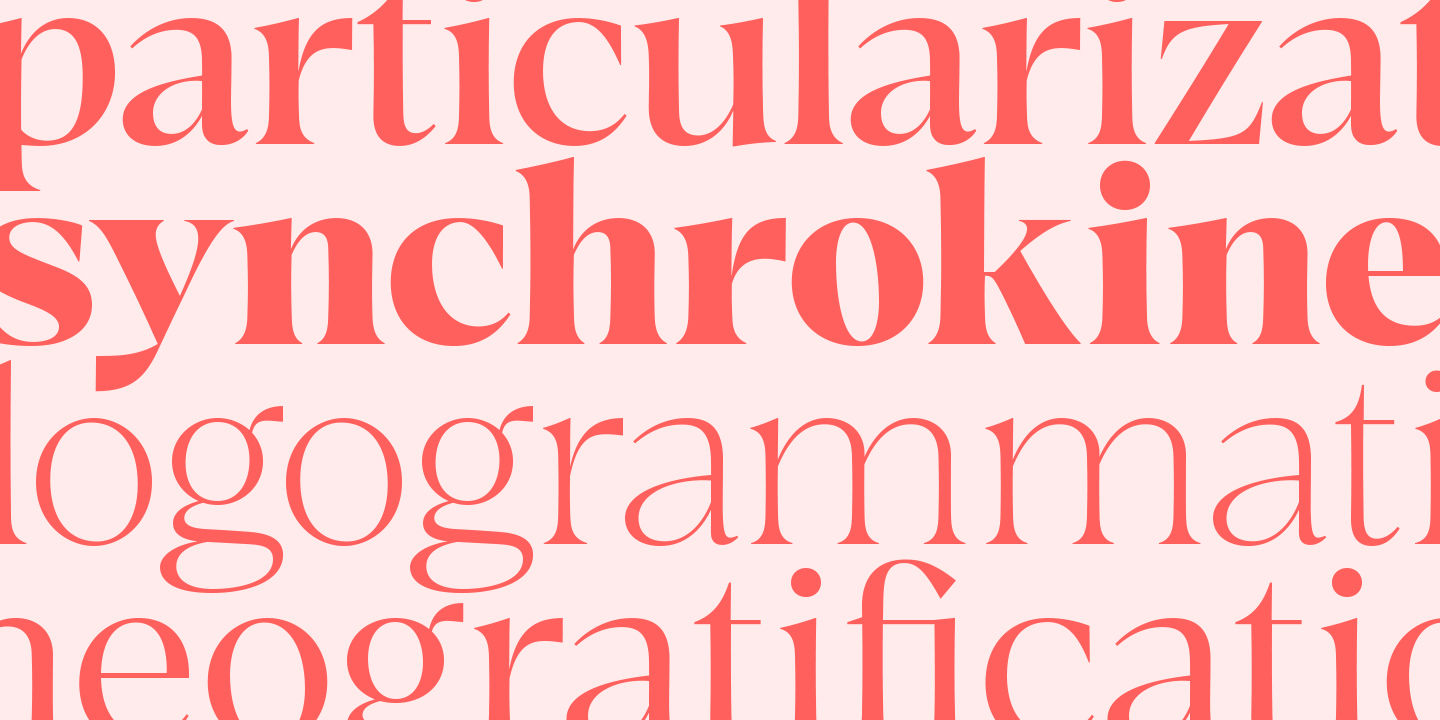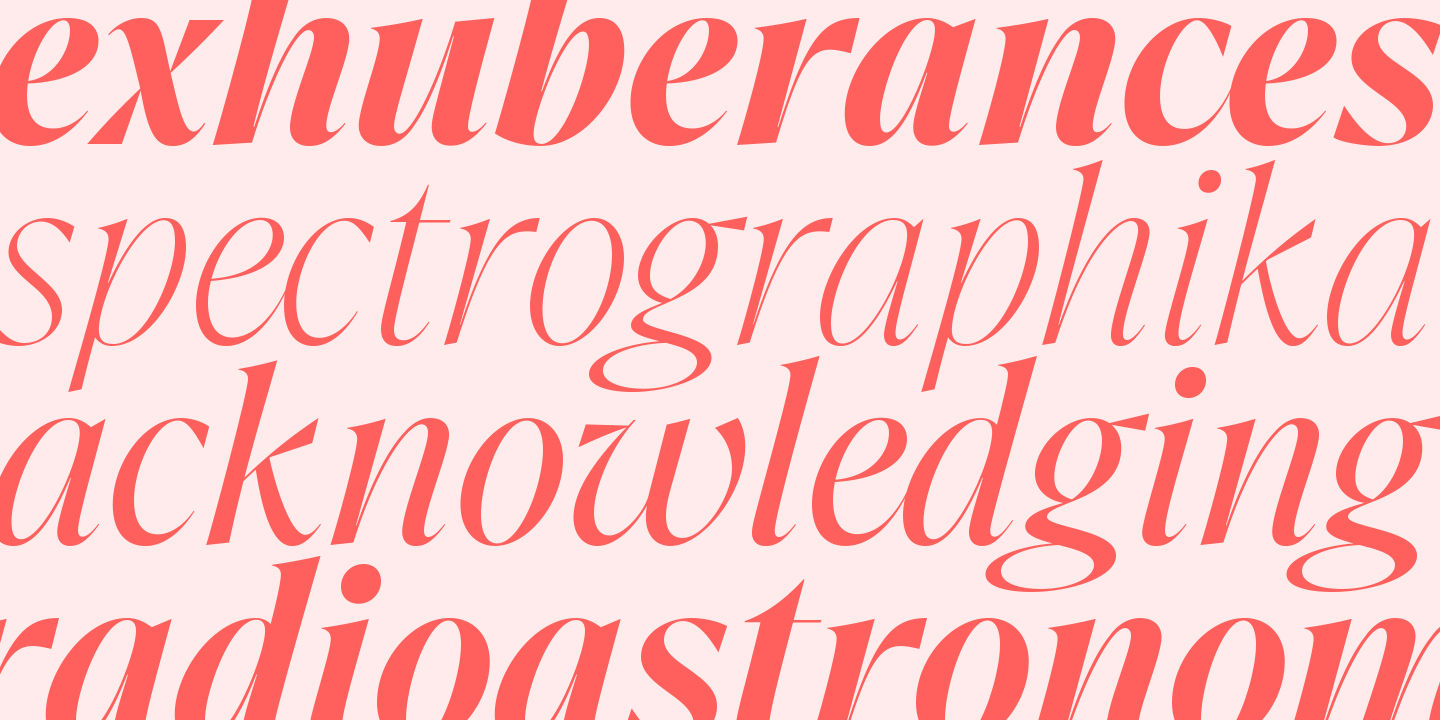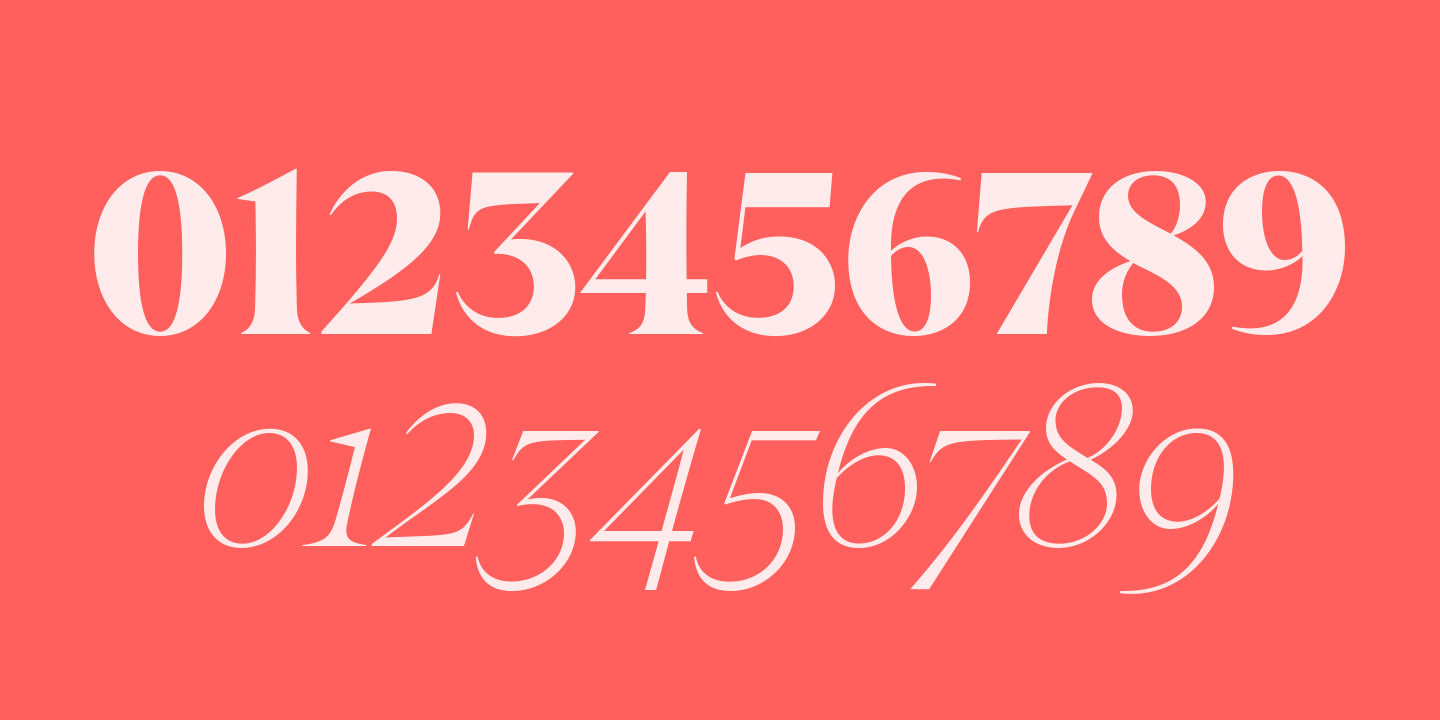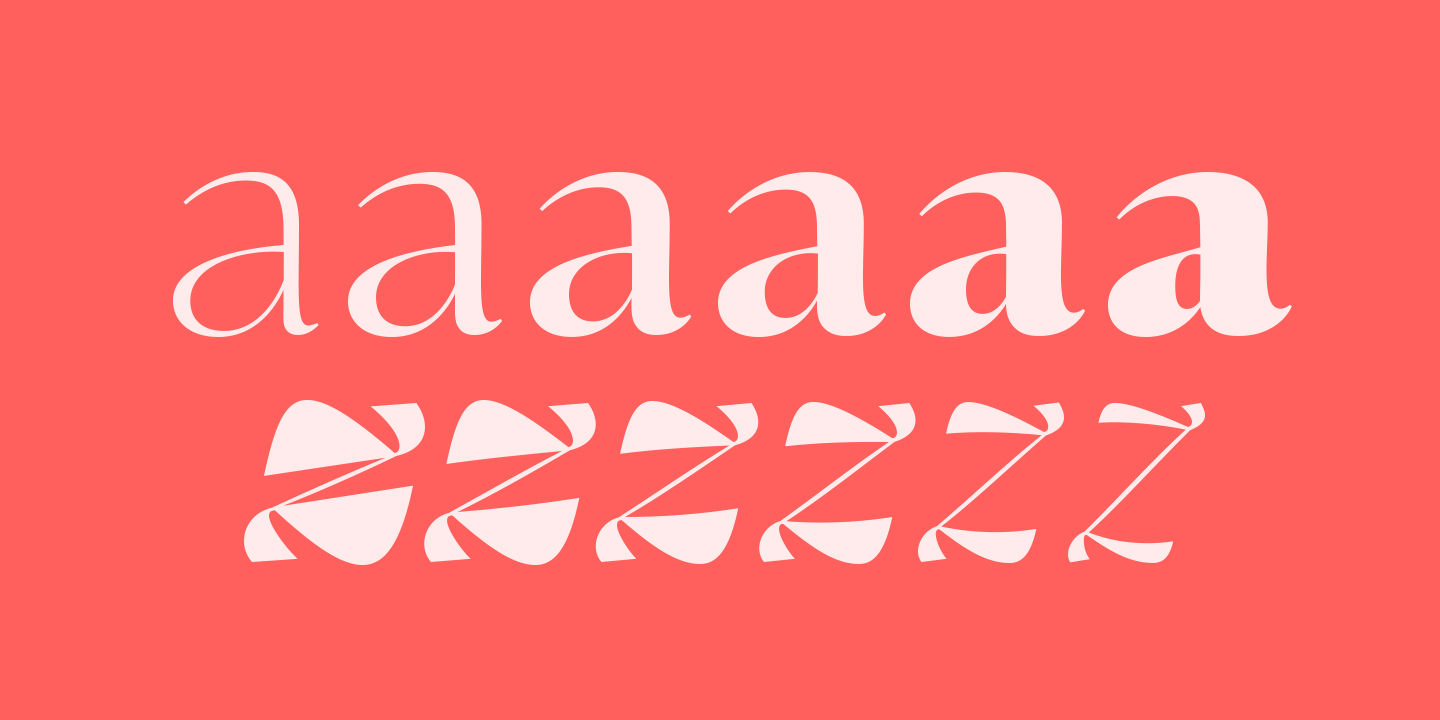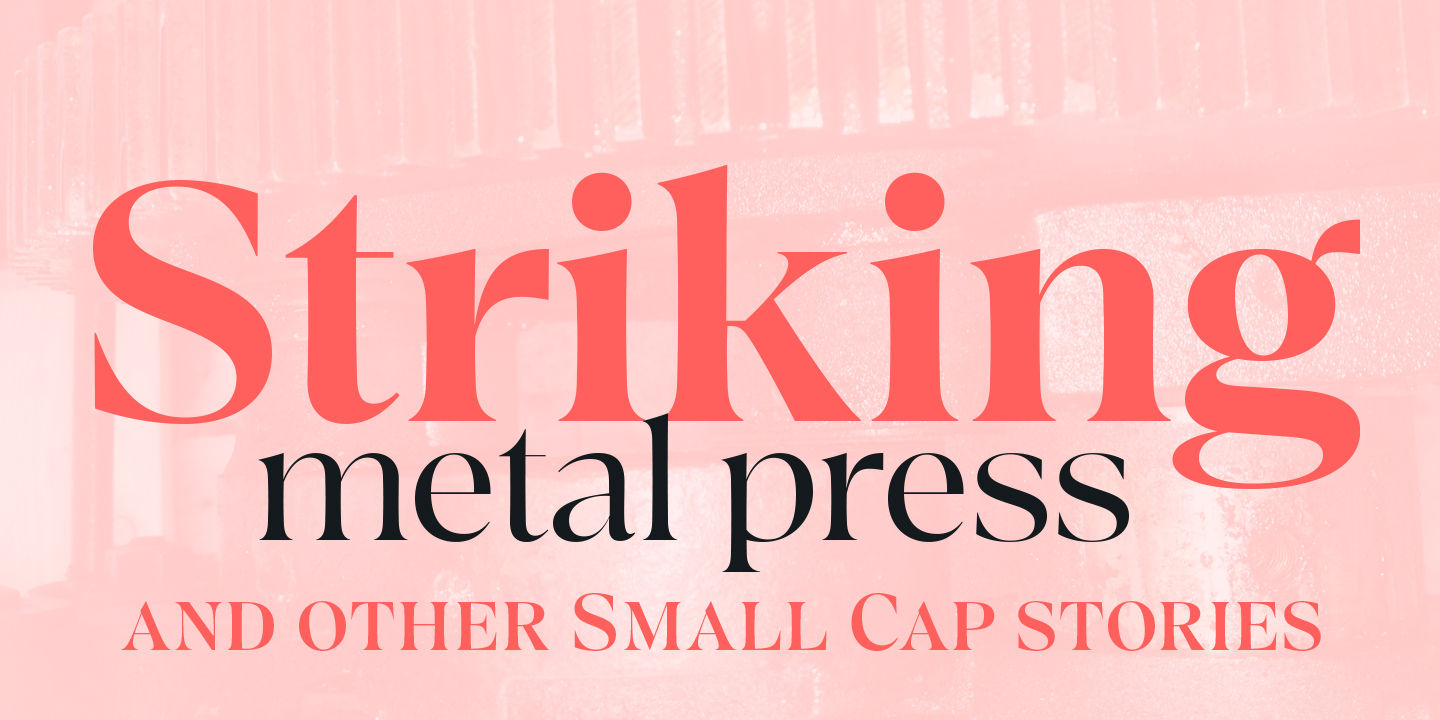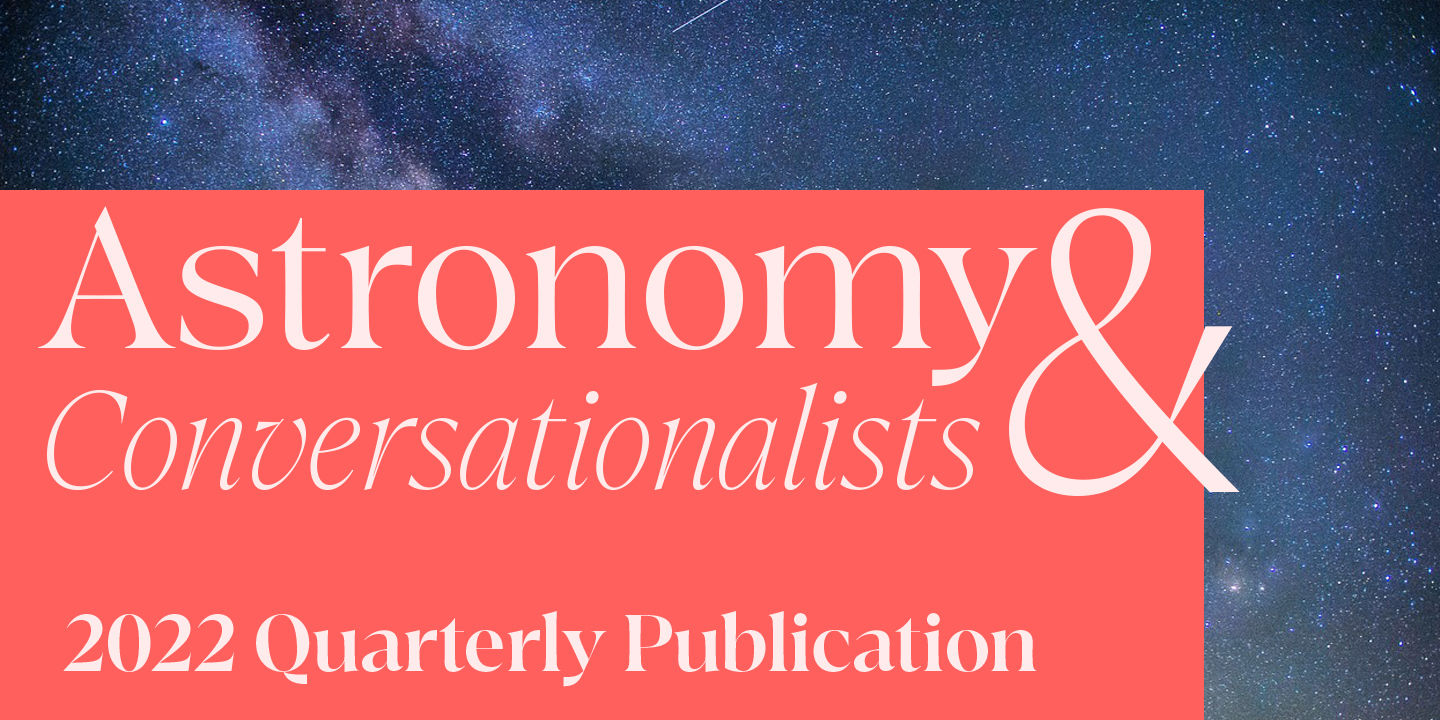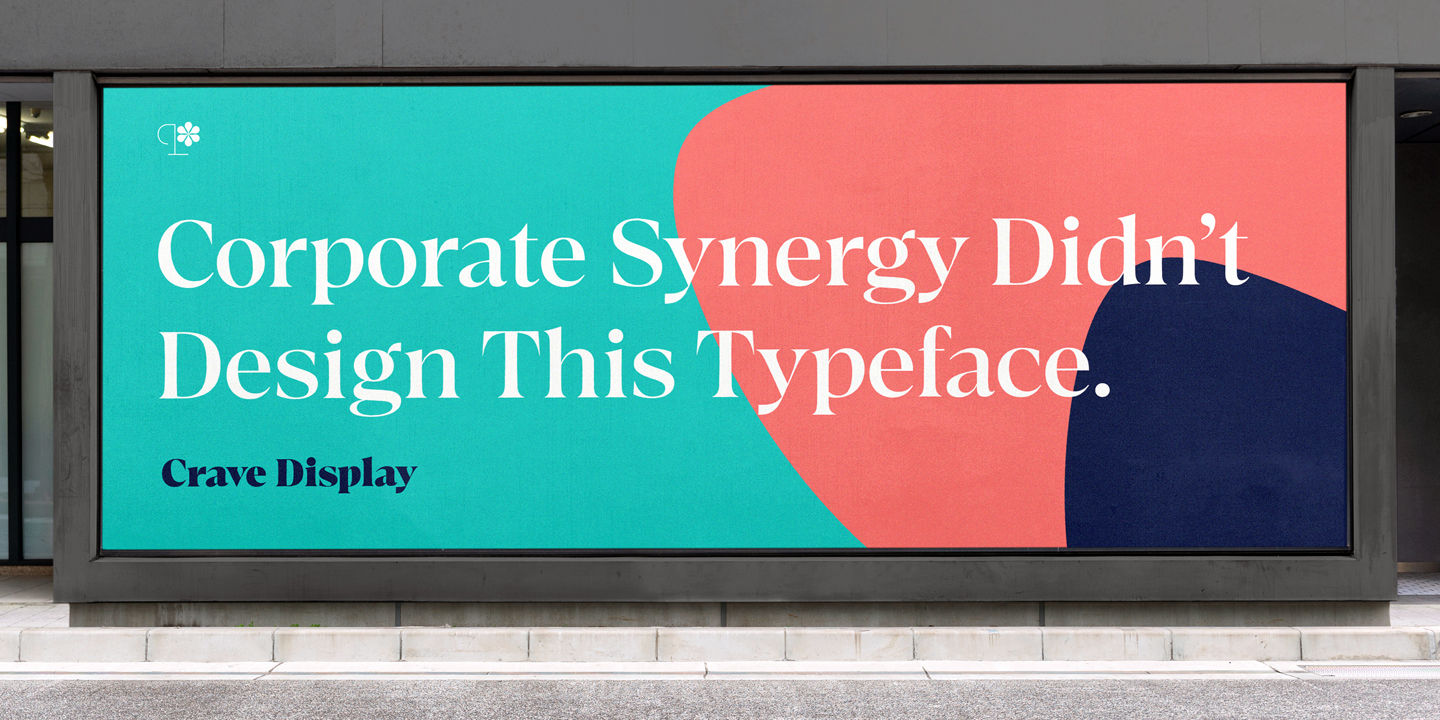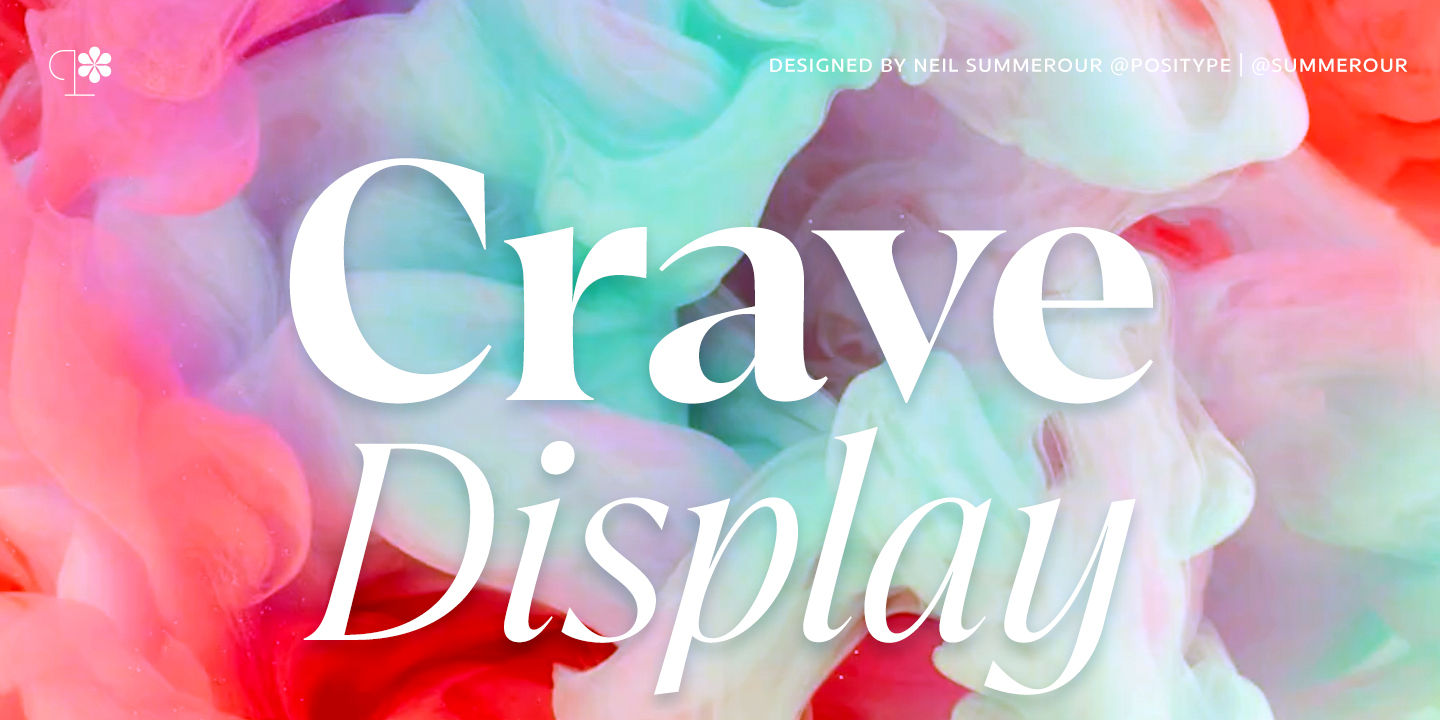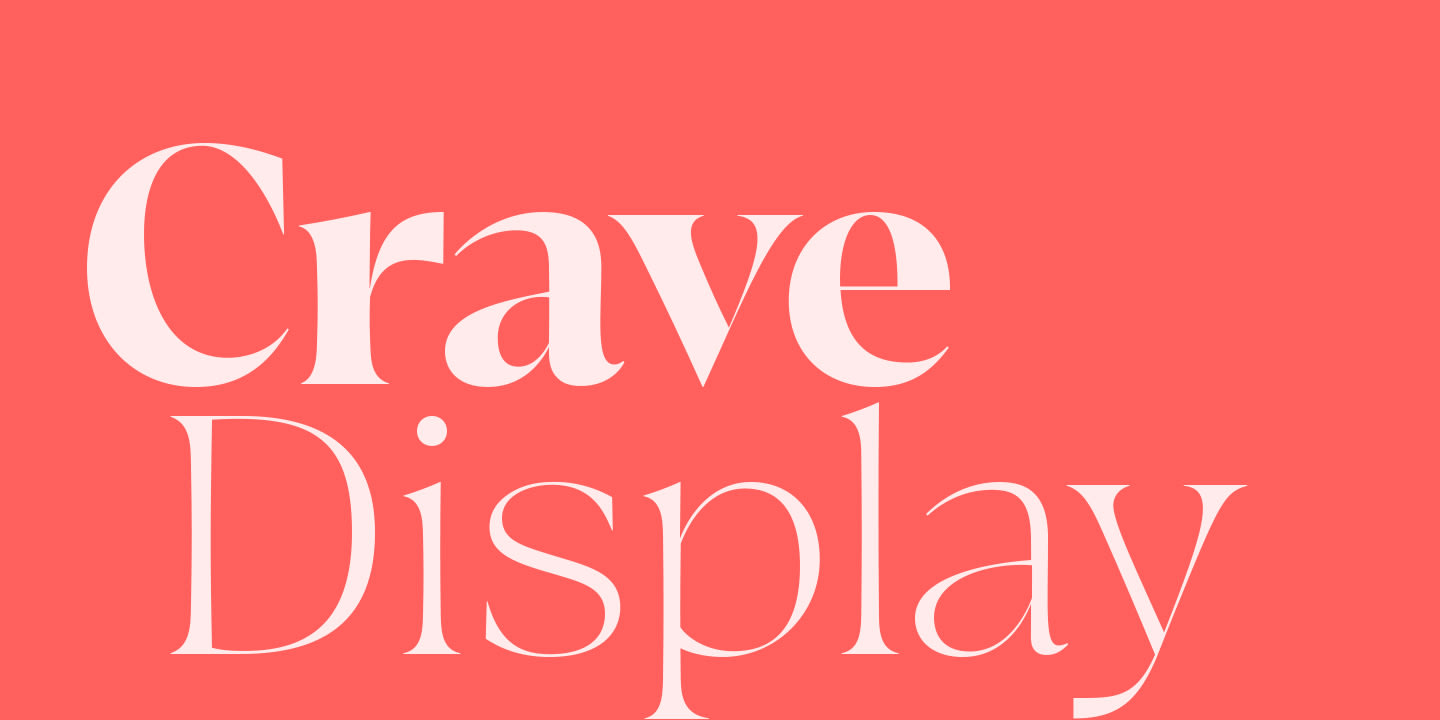
Crave Display
fi fl ff ffi ffl
Standard Ligaturesliga
Small Caps
Small Capssmcp
1/2 3/4 5/8 7/16
Fractionsfrac
n26+x128
Superscriptsups
H₂O CO₂ H₂SO₄
Scientific Inferiorssinf
1ª 2º Nº
Ordinalsordn
(A) [B] {C} «D»
Case-Sensitive Formscase
0123456789
Oldstyle Numeralsonum
b f h k
Stylistic Set 1ss01
Elegant, indulgent, and filled with typographic elements that creatives crave, the Crave™ typeface families explore the influences of its predecessor, Lust™ by Neil Summerour, and then deliberately departs in more refined and unexpected ways to deliver a mainstay typographic collection all creatives can use. There have been variations of Crave circulating since 2016 as part of private commissions or experimental sets, but Summerour continued to iteratively refine and expand on what might be needed now and in the future, building out robust character sets, expansive alternates, and optical sizes in hopes of providing a truly useful set of display typefaces. The three Crave optical families: Standard, Display, and Fine each include true italics, small caps, multiple numeral sets, smart ligatures, and extensive language support. The Crave Script fonts provide an over-the-top collection of alternatives, swashes, whorls, loops, all refined in Summerour’s signature style and attention to detail. The most subversive family in the collection, Crave Aura, contains three optical sizes and six weights and truly focuses on over-delivering on emerging explorative typefaces that disruptively infuse excess and voluptuous forms in unexpected ways. This level of typographic excess is what Summerour is known for, and Crave Aura raises the bar on how to responsibly and cohesively deliver on what he refers to as Neo-Nouveau typefaces by refusing to producing a singular, one-off font and instead delivering an expansive family to bolster the tools afforded the creative user.